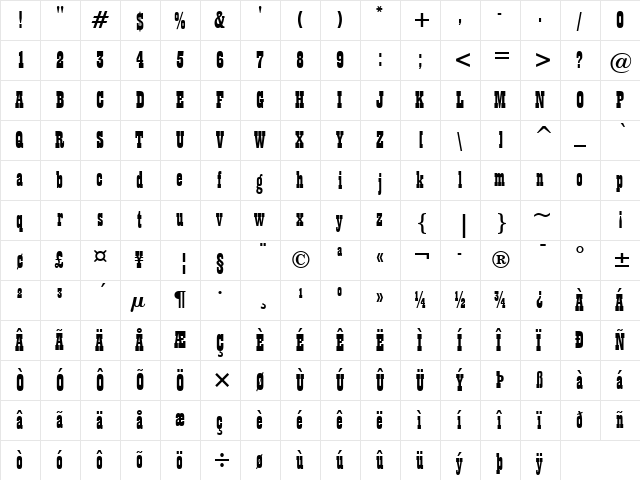
Playbill Regular
Design Context for Playbill Typeface
Playbill takes a measured approach to typography — its balanced proportions and neutral character make it a reliable workhorse for both digital and print work.
Pro Tip: Use Playbill in both headline and body roles to test its range before committing to a single application.